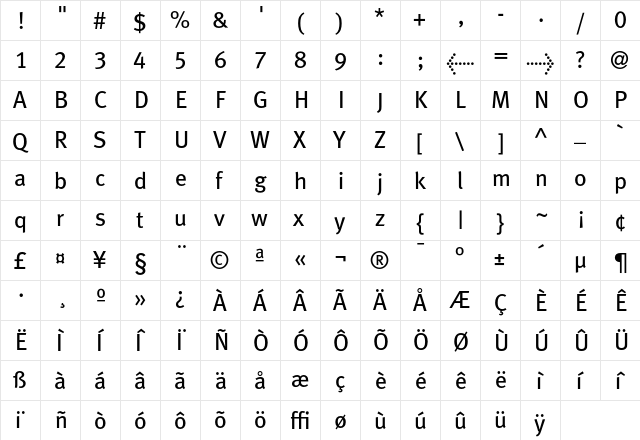
MetaPlusLining Book
Design Context for MetaPlusLining Typeface
MetaPlusLining offers clean, dependable letterforms without strong stylistic allegiance, making it a practical choice for designers who need flexibility.
Pro Tip: Use MetaPlusLining in both headline and body roles to test its range before committing to a single application.